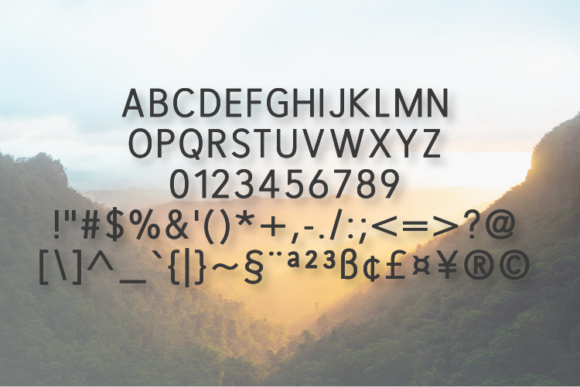
Guliwon Font: The Perfect Blend of Smooth and Sharp for Your Design Needs
In the world of typography, fonts play a crucial role in conveying the message and aesthetic of a design. With numerous font styles available, finding the perfect one that complements your design can be a daunting task. However, if you’re looking for a smooth sans serif font that strikes a balance between smooth and sharp, look no further than Guliwon Font.
What is Guliwon Font?
Guliwon Font is a modern sans serif font designed to cater to a wide range of design needs. Its smooth and sleek appearance makes it an ideal choice for designers, crafters, and anyone looking for a versatile font. The font’s perfectly balanced mix of smooth and sharp lines creates a unique visual appeal that sets it apart from other fonts.
Key Features of Guliwon Font
- Smooth Sans Serif: Guliwon Font boasts a smooth sans serif design, making it perfect for designs that require a clean and modern look.
- Perfectly Balanced: The font’s unique blend of smooth and sharp lines creates a balanced visual appeal that complements any design.
- Versatile: Guliwon Font is suitable for a wide range of design applications, including logos, headings, body text, and more.
- Easily Readable: The font’s clear and concise design ensures that your text is easily readable, making it perfect for body text and other written content.
Benefits of Using Guliwon Font
Using Guliwon Font in your designs offers numerous benefits, including:
- Enhanced Visual Appeal: The font’s unique design creates a visually appealing effect that captures the attention of your audience.
- Improved Readability: Guliwon Font’s clear design ensures that your text is easily readable, making it perfect for designs that require a lot of written content.
- Versatility: The font’s versatility makes it suitable for a wide range of design applications, saving you time and effort in searching for multiple fonts.
- Professional Look: Guliwon Font’s modern design gives your designs a professional look, making it perfect for businesses, brands, and individuals looking to create a lasting impression.
Design Applications of Guliwon Font
Guliwon Font is suitable for a wide range of design applications, including:
- Logo Design: The font’s unique design makes it perfect for logo design, creating a memorable and visually appealing logo for your brand.
- Headings and Titles: Guliwon Font’s bold and smooth design makes it ideal for headings and titles, adding a touch of elegance to your designs.
- Body Text: The font’s clear and concise design ensures that your body text is easily readable, making it perfect for written content.
- Posters and Flyers: Guliwon Font’s bold and eye-catching design makes it perfect for posters and flyers, grabbing the attention of your audience.
Guliwon Font is a versatile and modern sans serif font that offers a perfect blend of smooth and sharp lines. Its unique design makes it suitable for a wide range of design applications, from logos and headings to body text and posters. With its enhanced visual appeal, improved readability, and professional look, Guliwon Font is an excellent choice for designers, crafters, and anyone looking for a high-quality font.